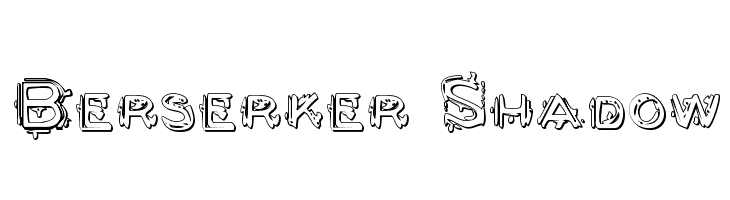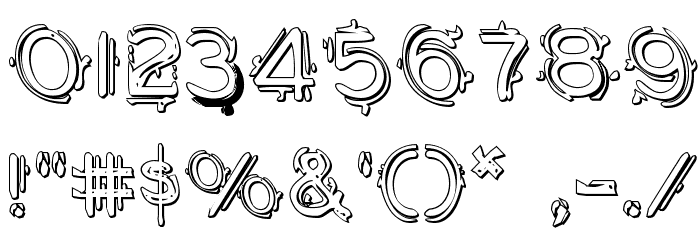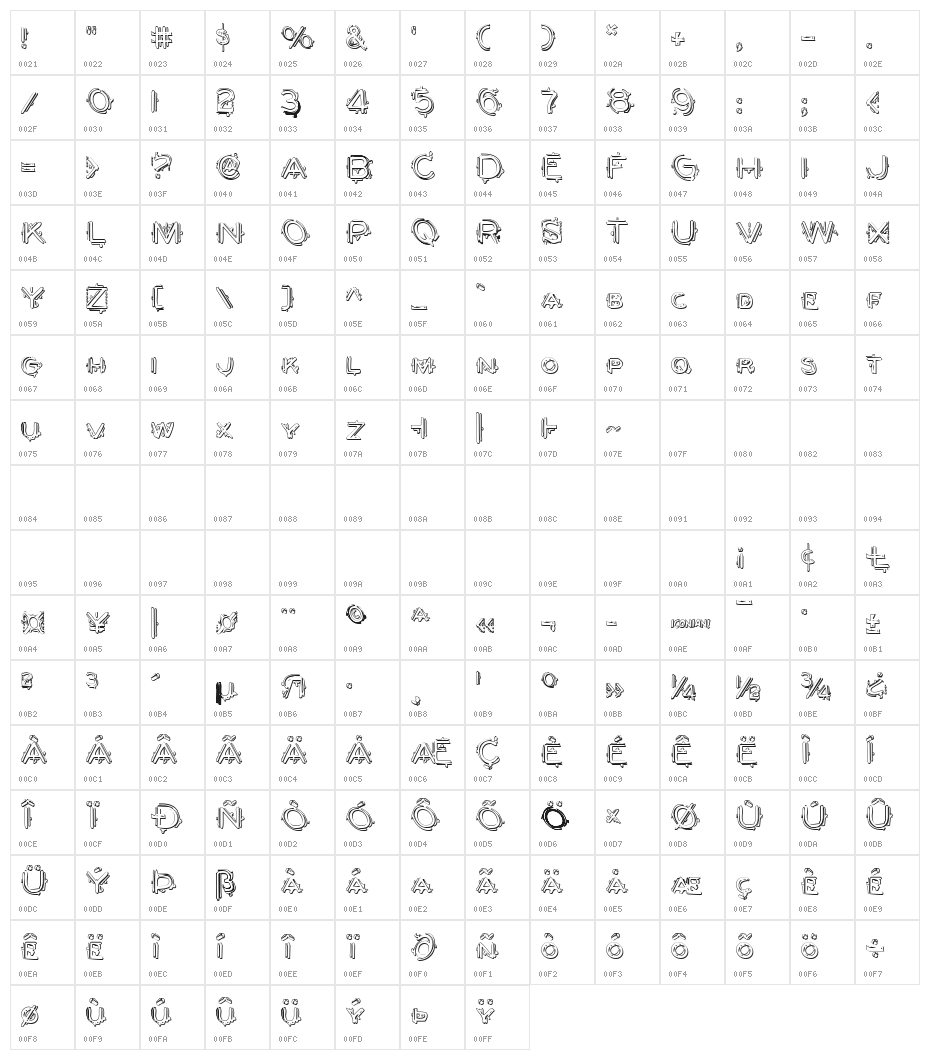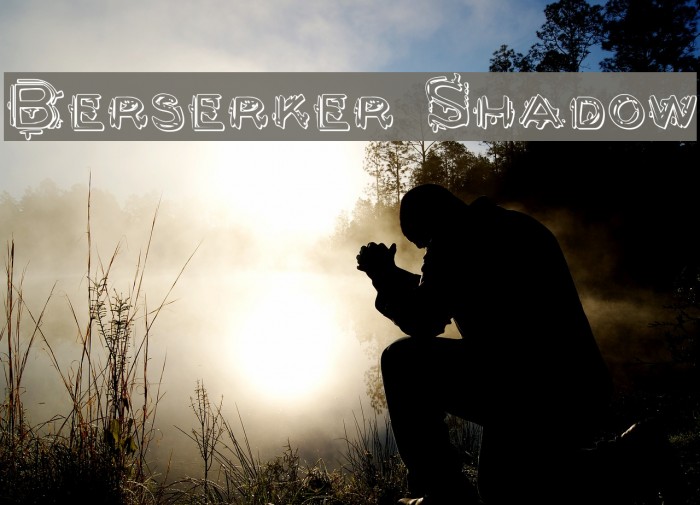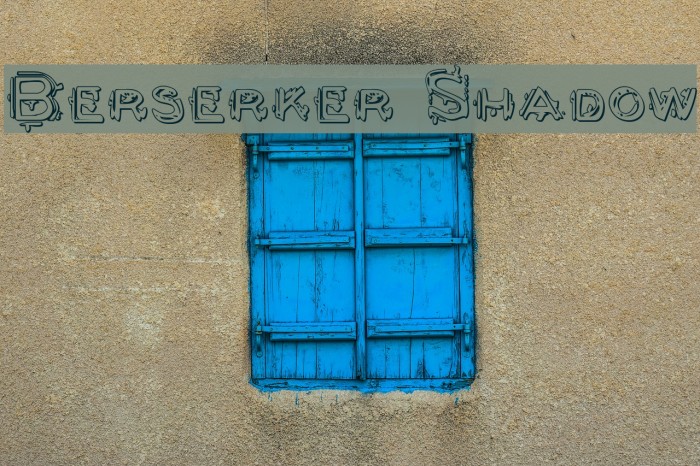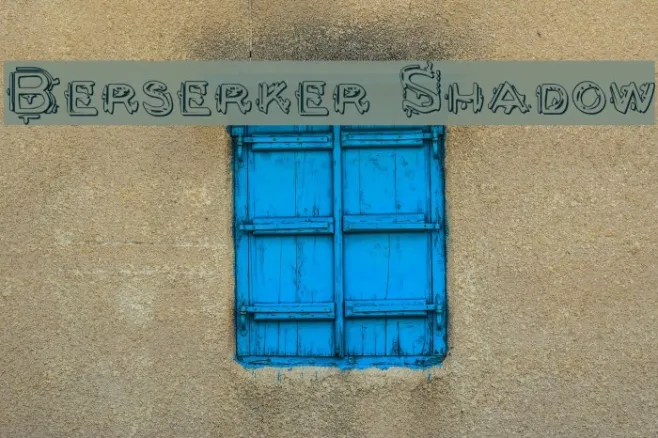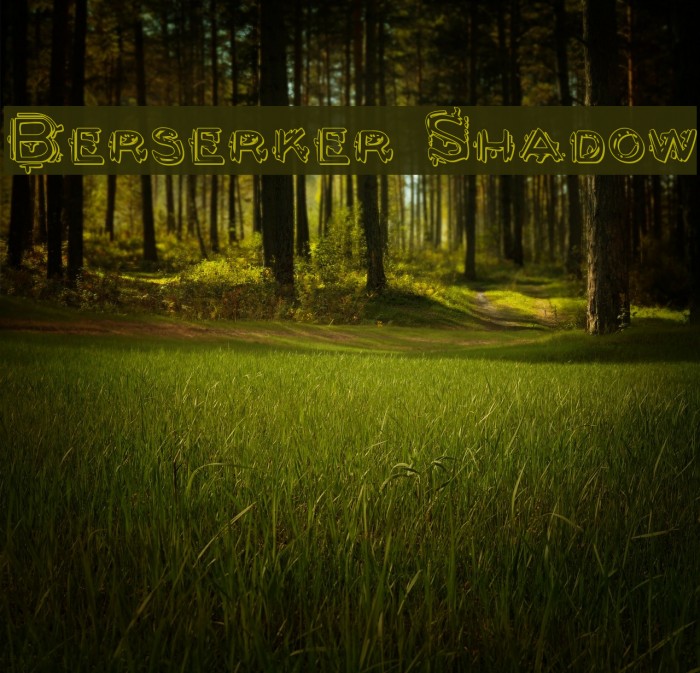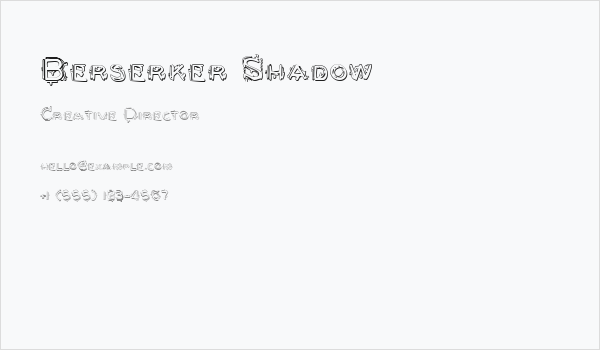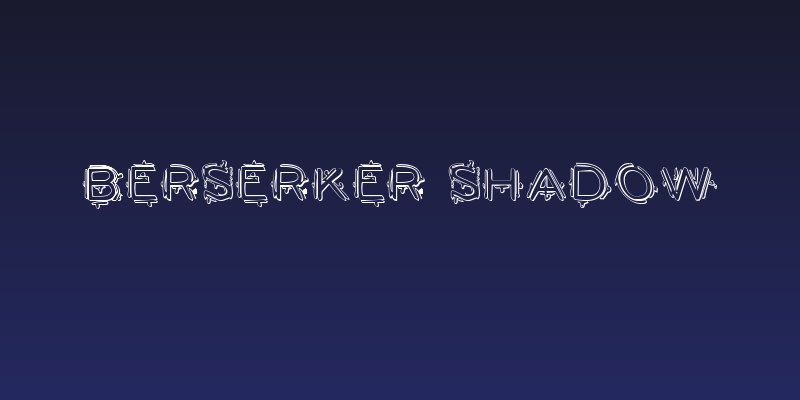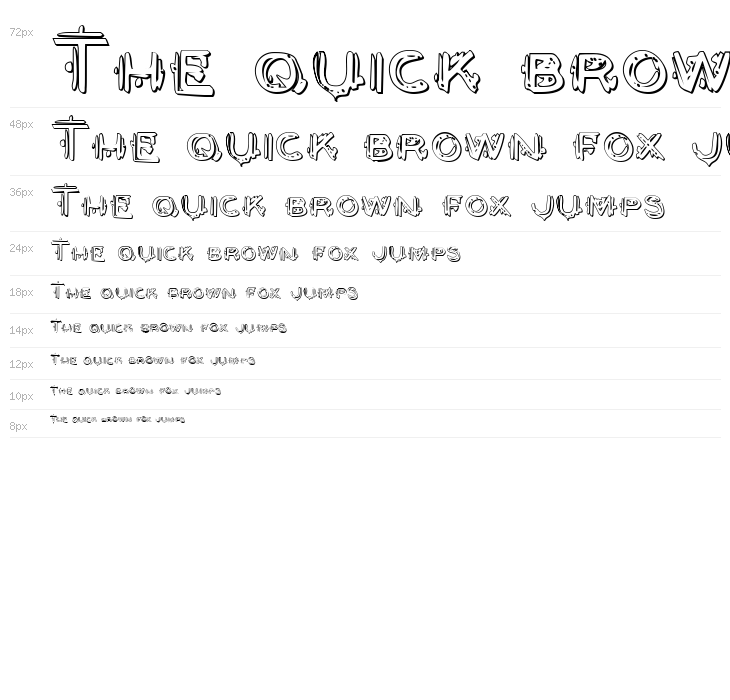
Berserker Shadow Font
Berserker Shadow Description
This font features a bold and edgy design with a shadow effect that gives it a three-dimensional appearance. The characters are outlined with a thick stroke, creating a sense of depth and intensity. Each letter has unique, rugged details that add to its aggressive and dynamic look. The font maintains a consistent style across uppercase, lowercase, numbers, and special characters, making it versatile for various design needs. Its distinct appearance is ideal for projects that require a strong visual impact.
| Overall Style | Modern, Edgy |
| Proposed Projects | Ideal for video game titles, movie posters, event flyers, and branding that requires a strong, impactful presence. |